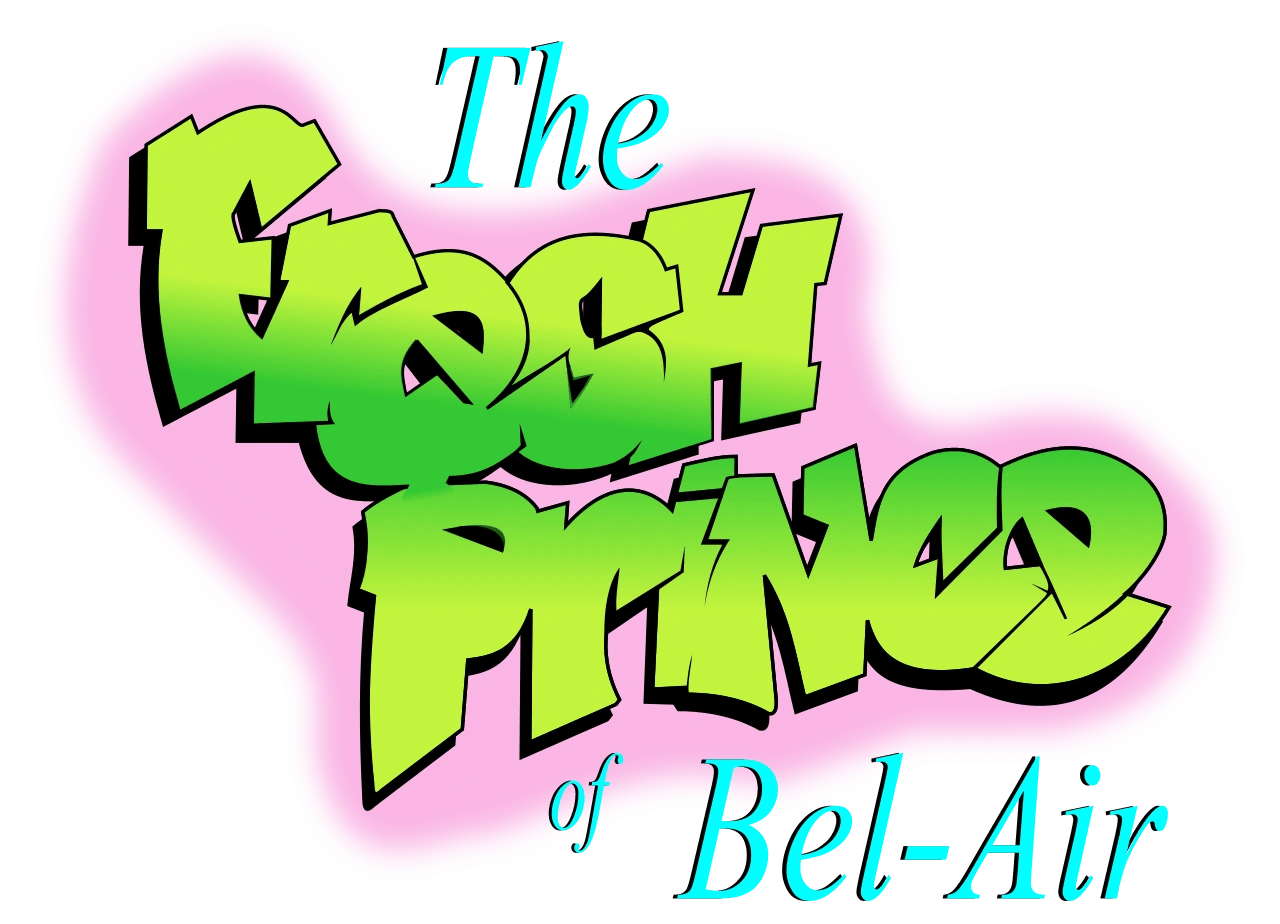
Fresh Prince Font Maker. This series logo aired from september 10, 1990 to may 20, 1996. It’s clean and a little bit quirky, this script font is the perfect fit for all of your branding, logos, crafty diy, and social media projects.
Create The Color Gradient Then Clip Mask The Font.
And The Ftf Indonesiana Go Graffitiana Font Is.
It was created by docallisme has feat dutsky. Create custom graffiti text from many graffiti fonts available. Fresh prince of bel air font is a casual, fancy typeface, designed by using a brush pen.